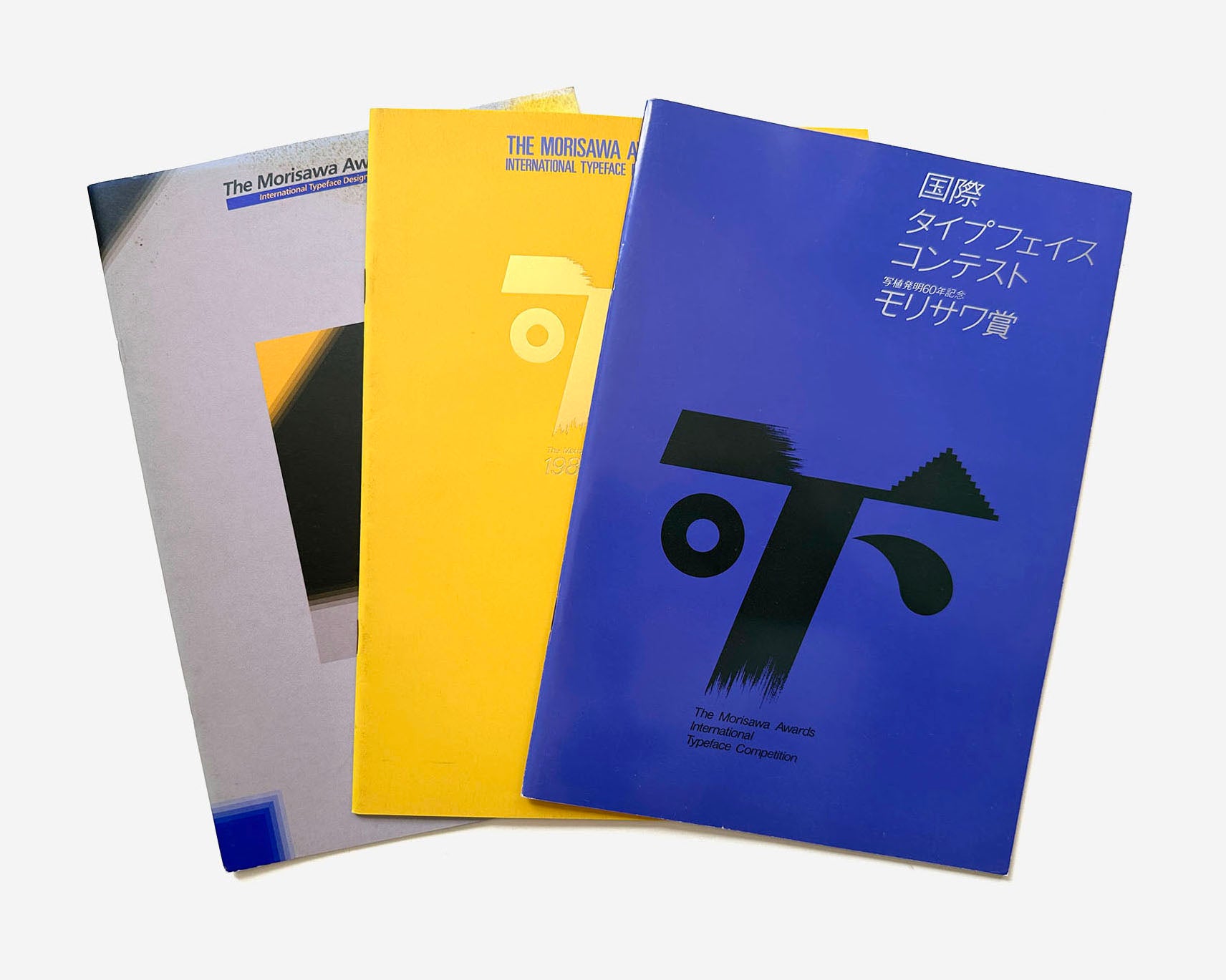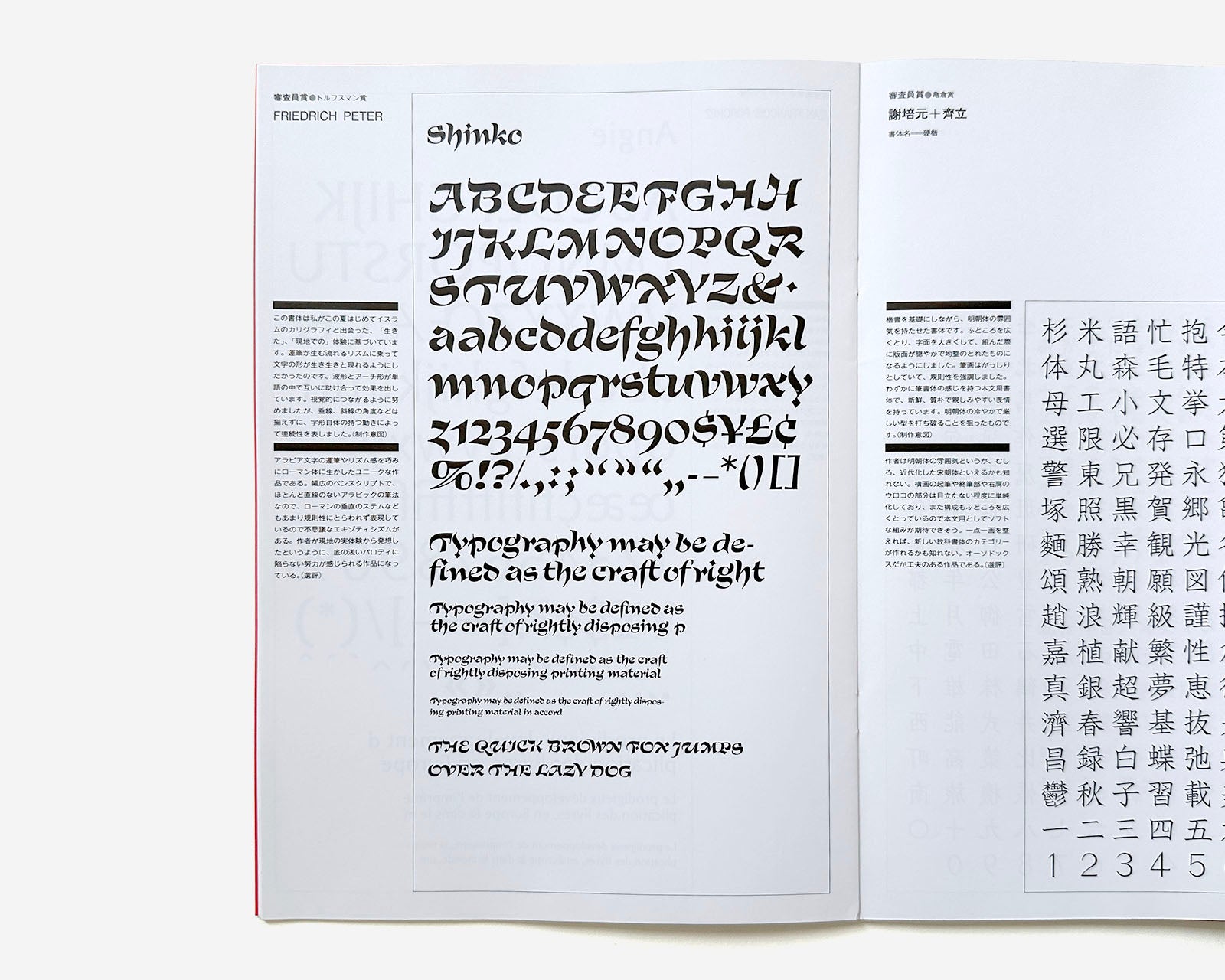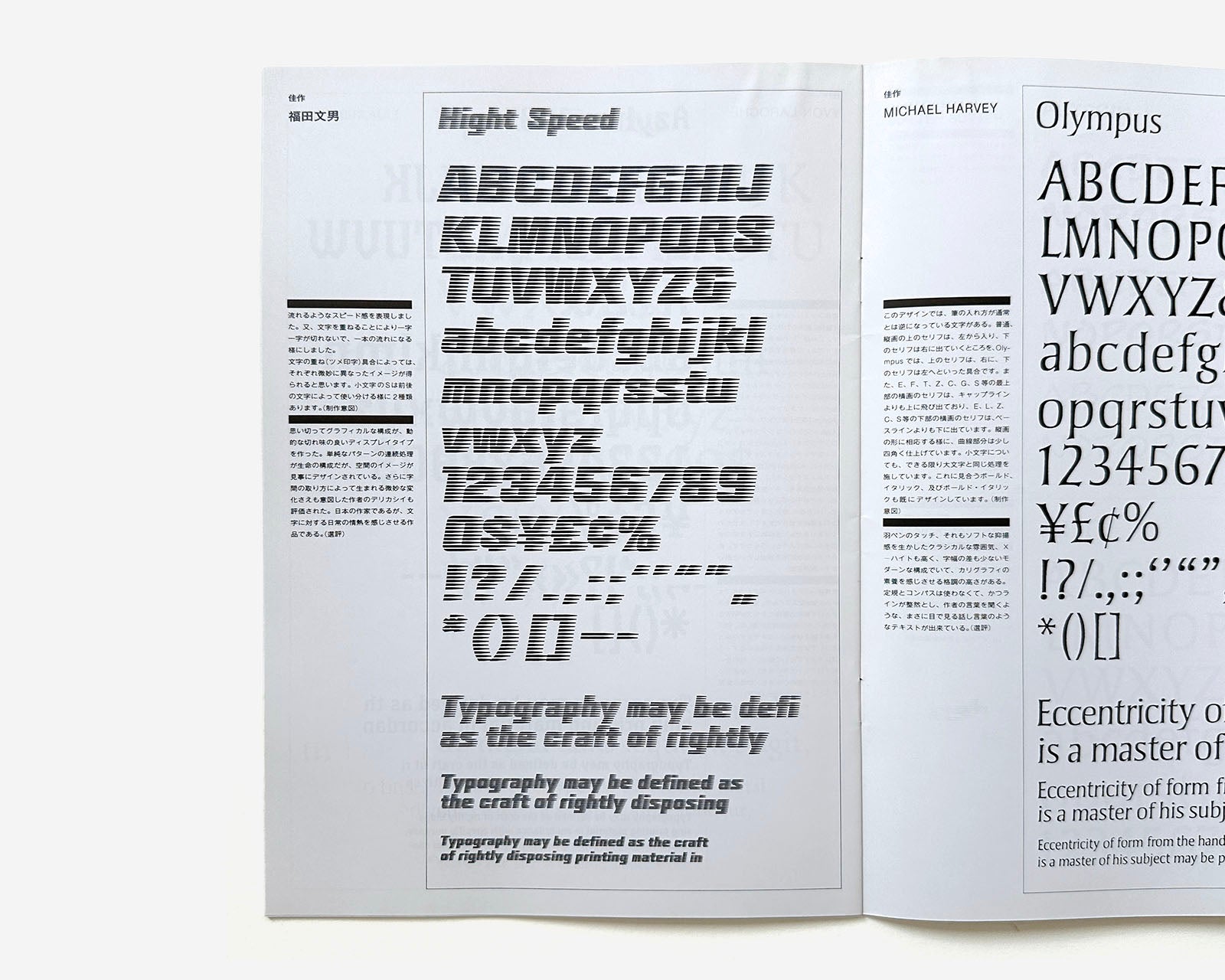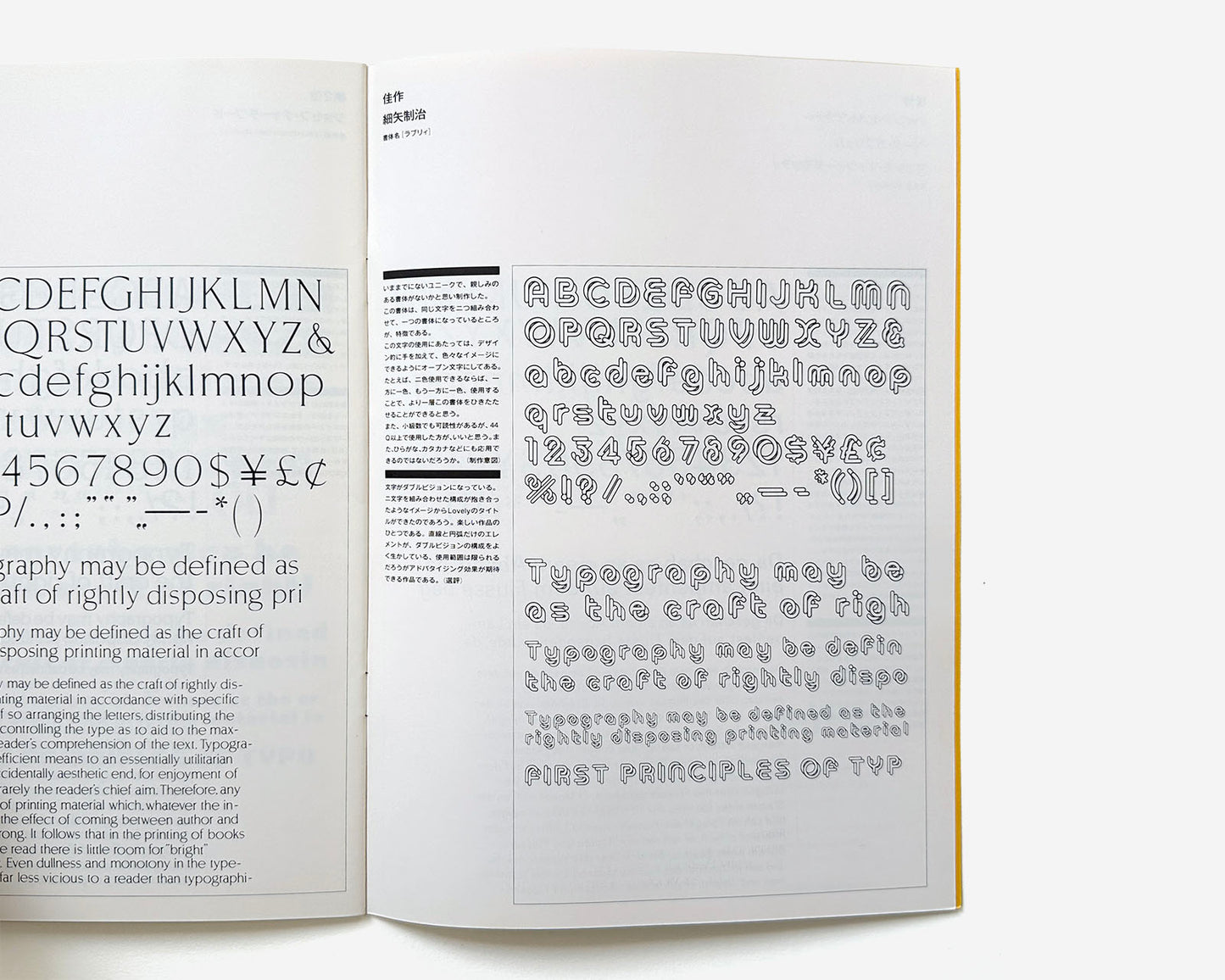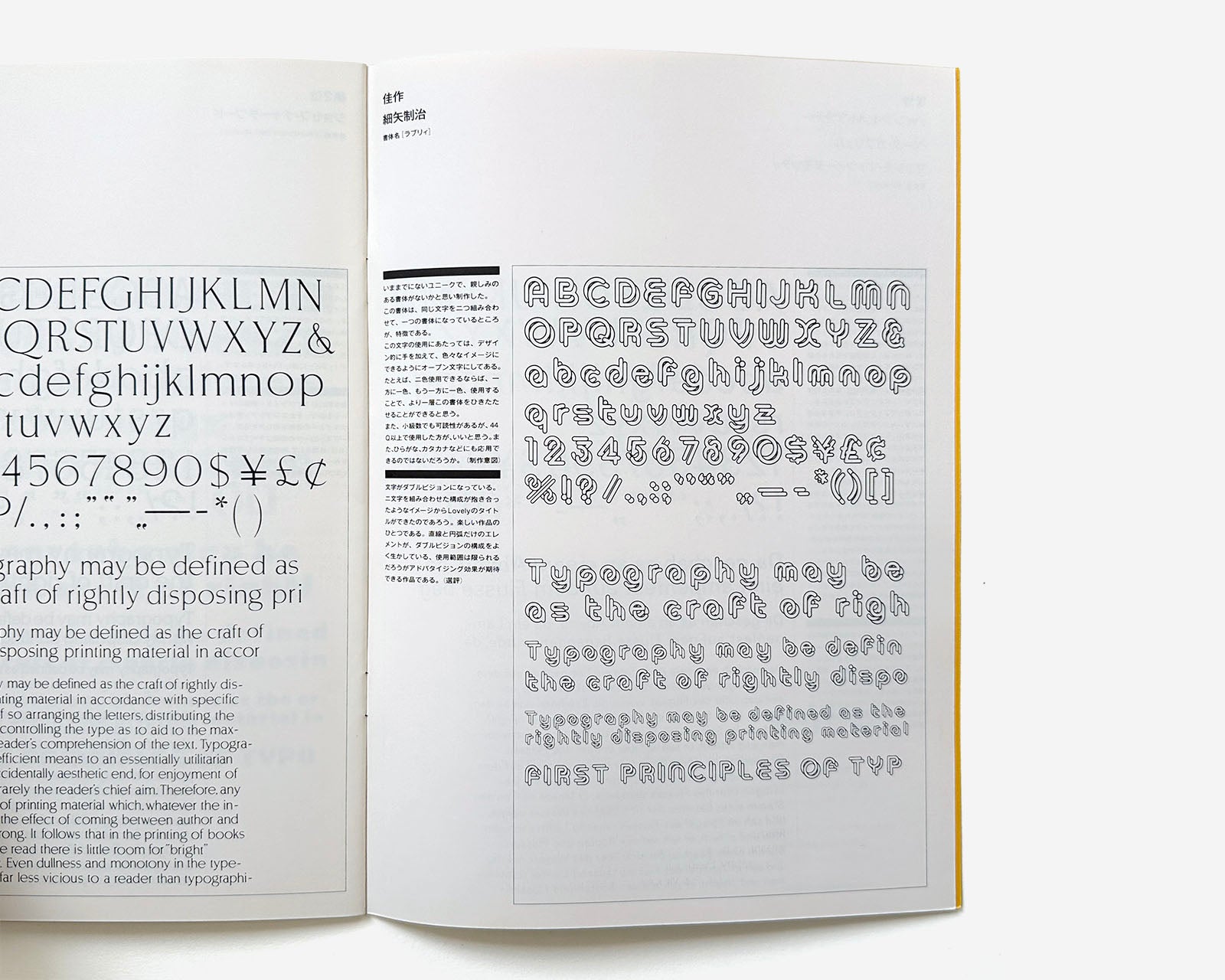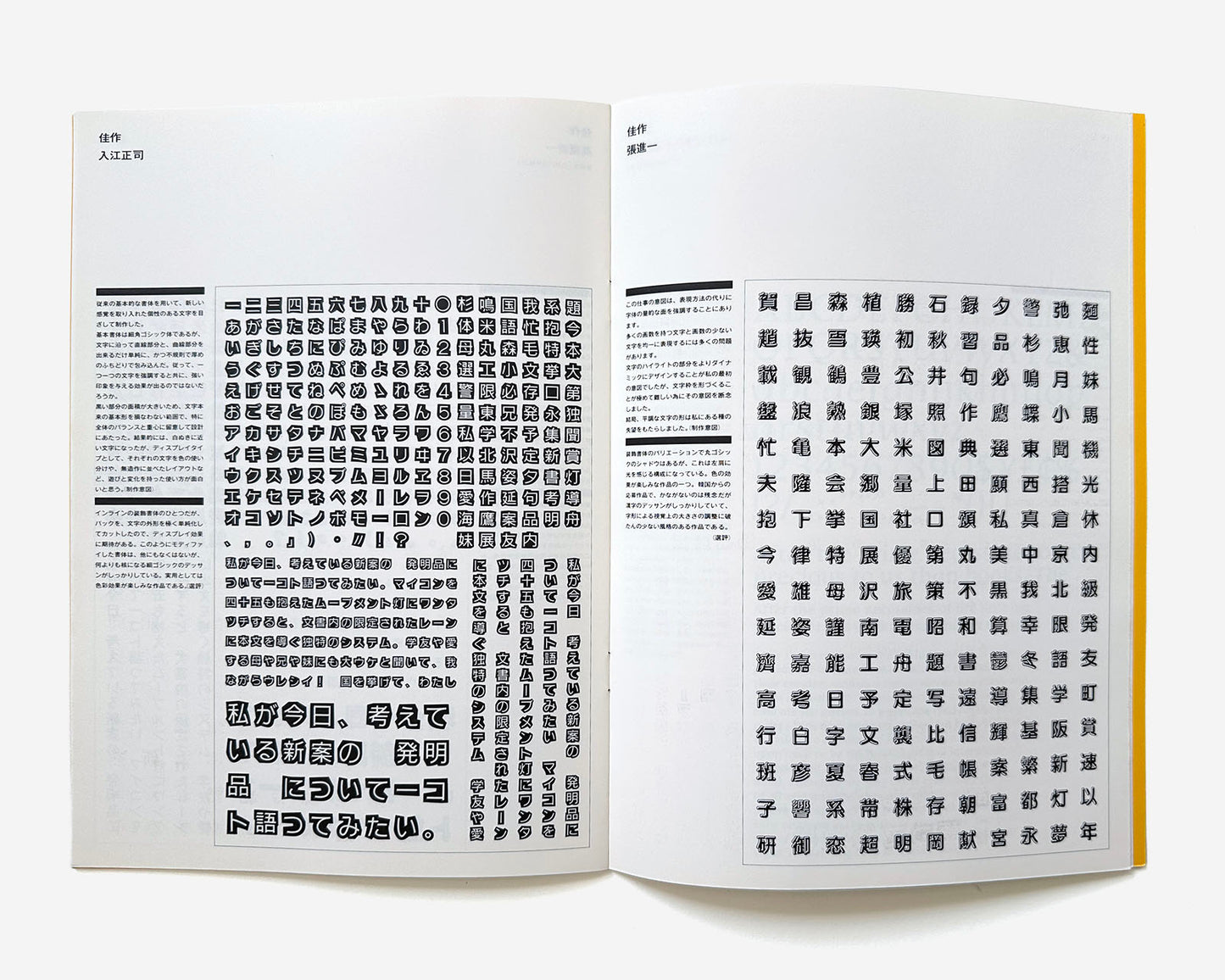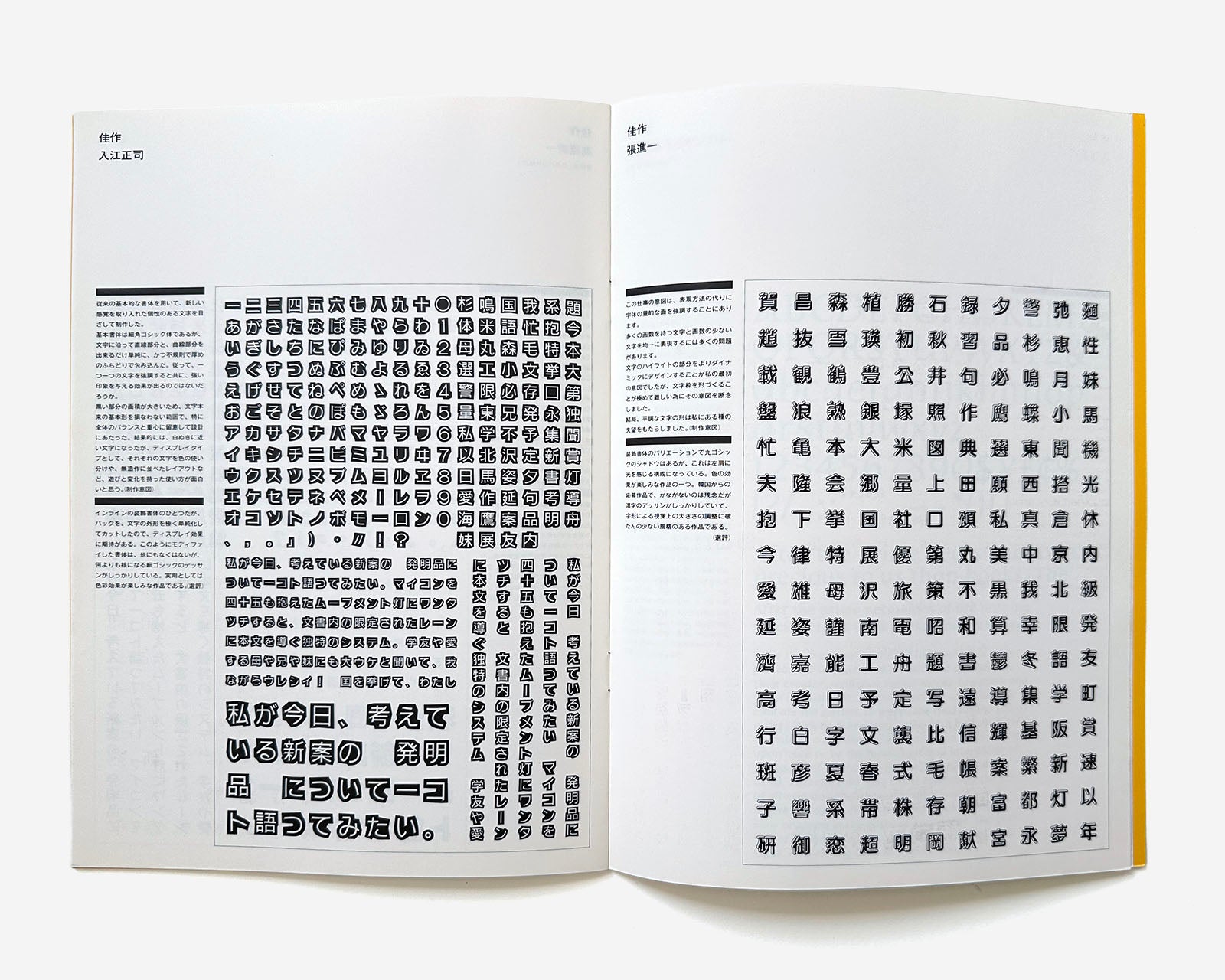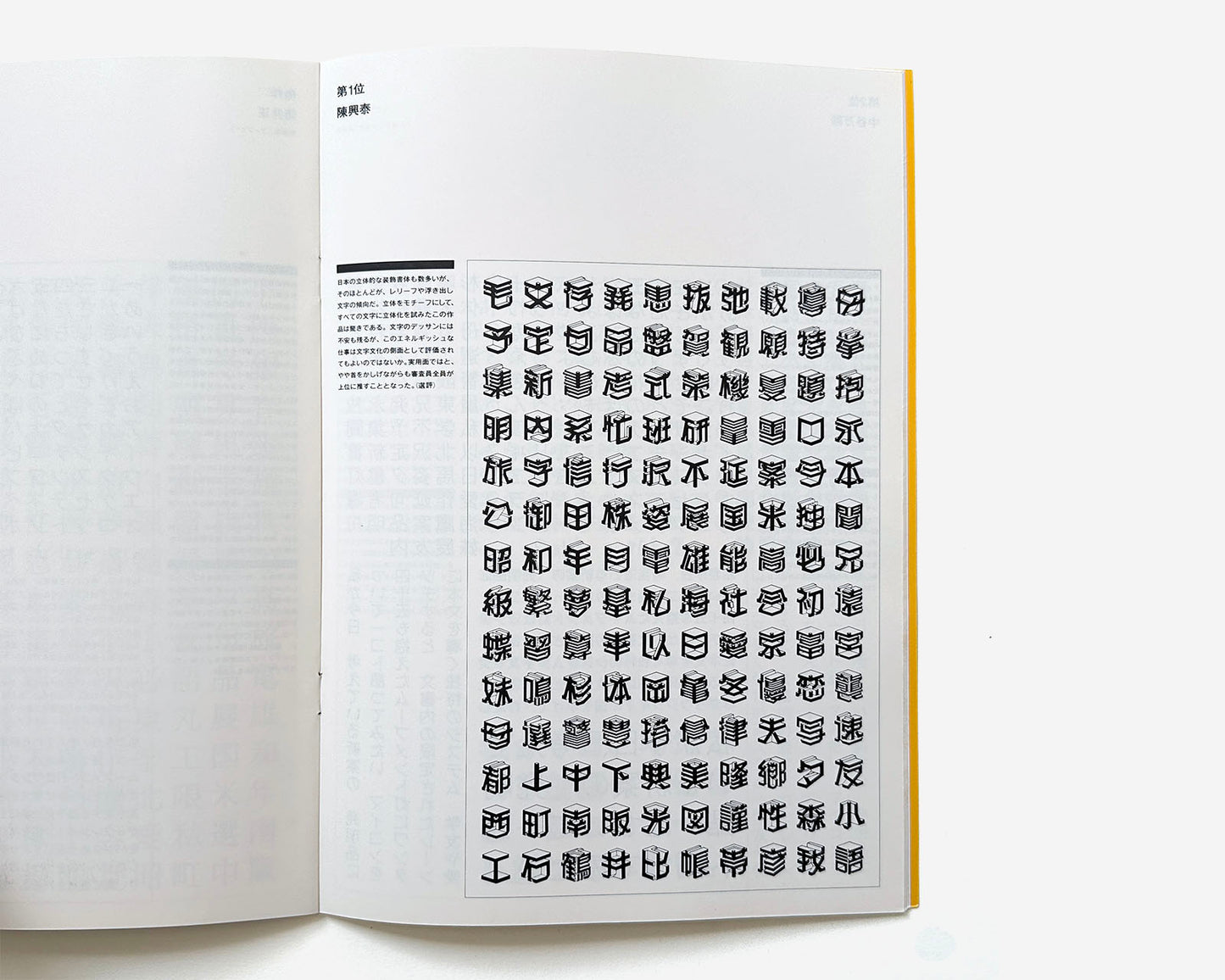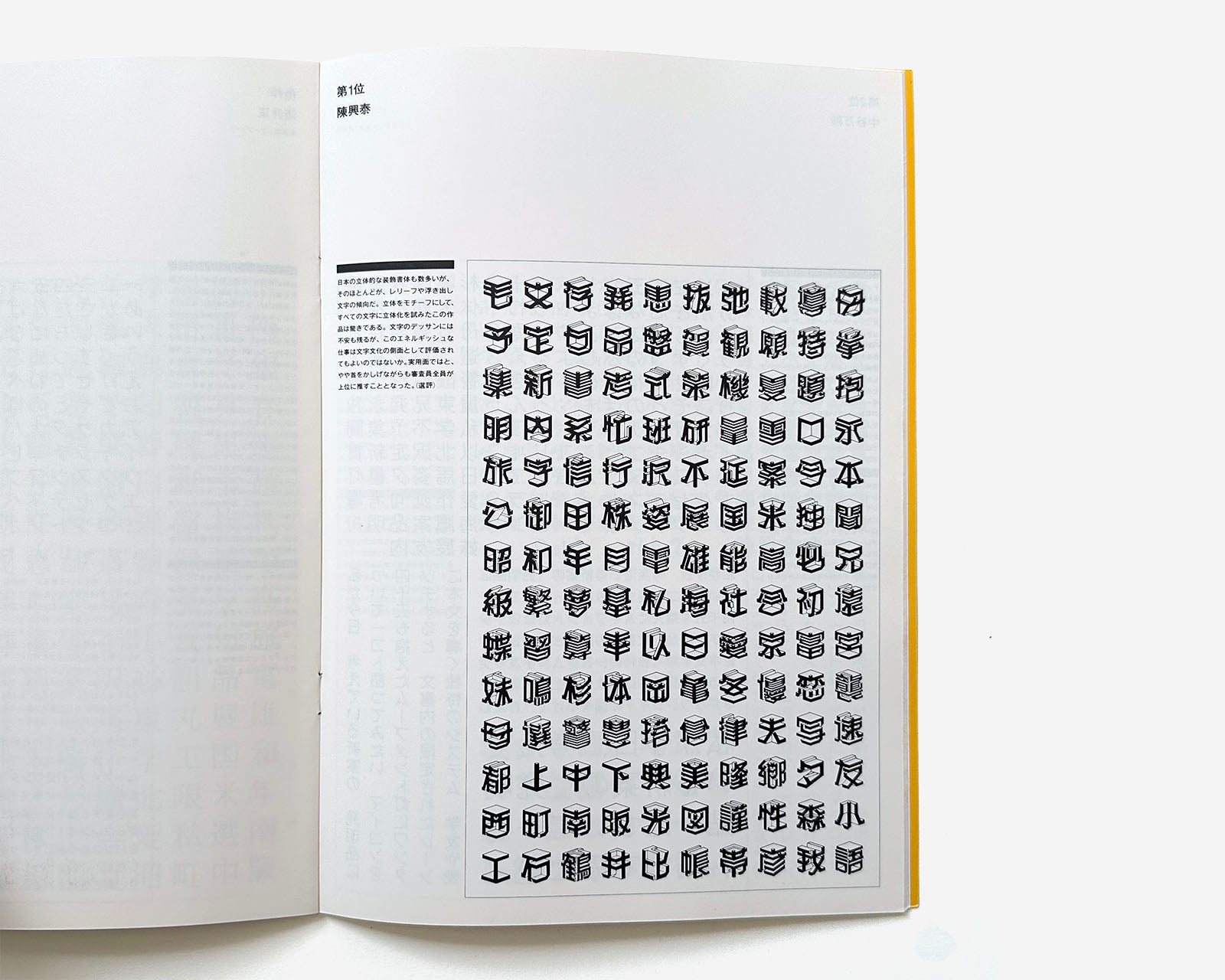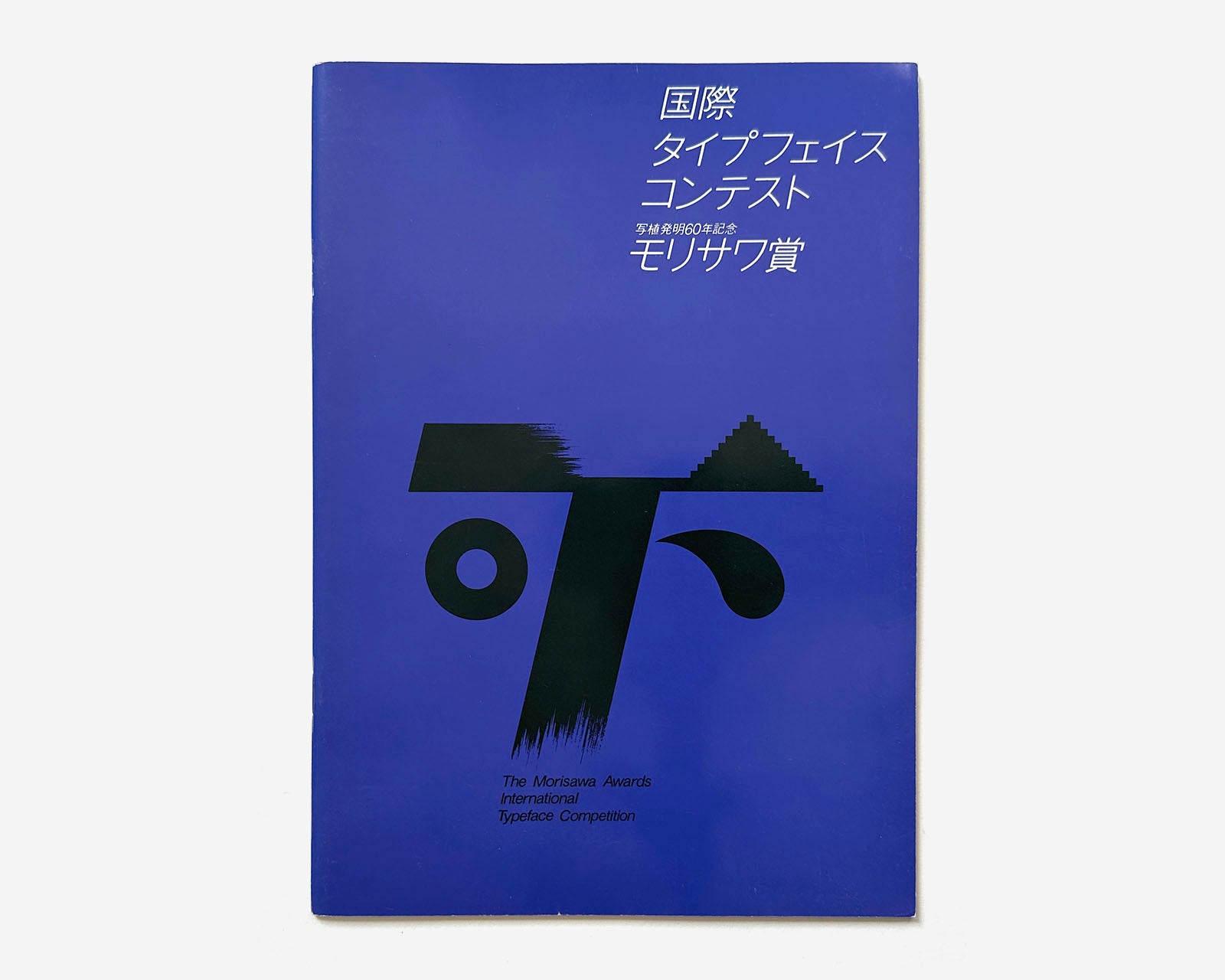
(3) Morisawa Awards, International Typeface Design Competition Booklets [1984, 1987, 1990]
(3) Individual Booklets — The Morisawa Awards, International Typeface Design Competition, 1984, 1987 and 1990. Morisawa Co., Ltd, Osaka, Japan. Stapled, 8.25 x 11.625, each with 28–32 pages plus covers. Printed in Japan with Japanese text only in an unknown quantity; perhaps for promotional use only and never sold publicly.
From 1984–2002, Morisawa Inc. has celebrated and supported excellence in typeface design through “The Morisawa Awards International Typeface Design Competition,” (later renamed ”Type Design Competition”) held every three years across seven editions. This collection of award booklets includes documentation from the first three competitions: 1984, 1987 and 1990.
Each issue opens with an Introductory statement by Morisawa President, Yoshiaki Morisawa followed by a list of award winners, along commentary and portraits of distinguished judges including: Yusaku Kamekura, Ikko Tanaka, Cho Young-jae, Adrian Frutiger, Eiko Ishioka, Masahiko Kozuka, Mitsuo Katsui, Pieter Brattinga, Henry Steiner, Lou Dorfsman, Yu Bingnan, Kimio Morisawa and others. The volumes also feature full-page specimens of Kanji and Latin typefaces — both Display and Body examples — accompanied by designer’s name, summaries, design statements, reviews.